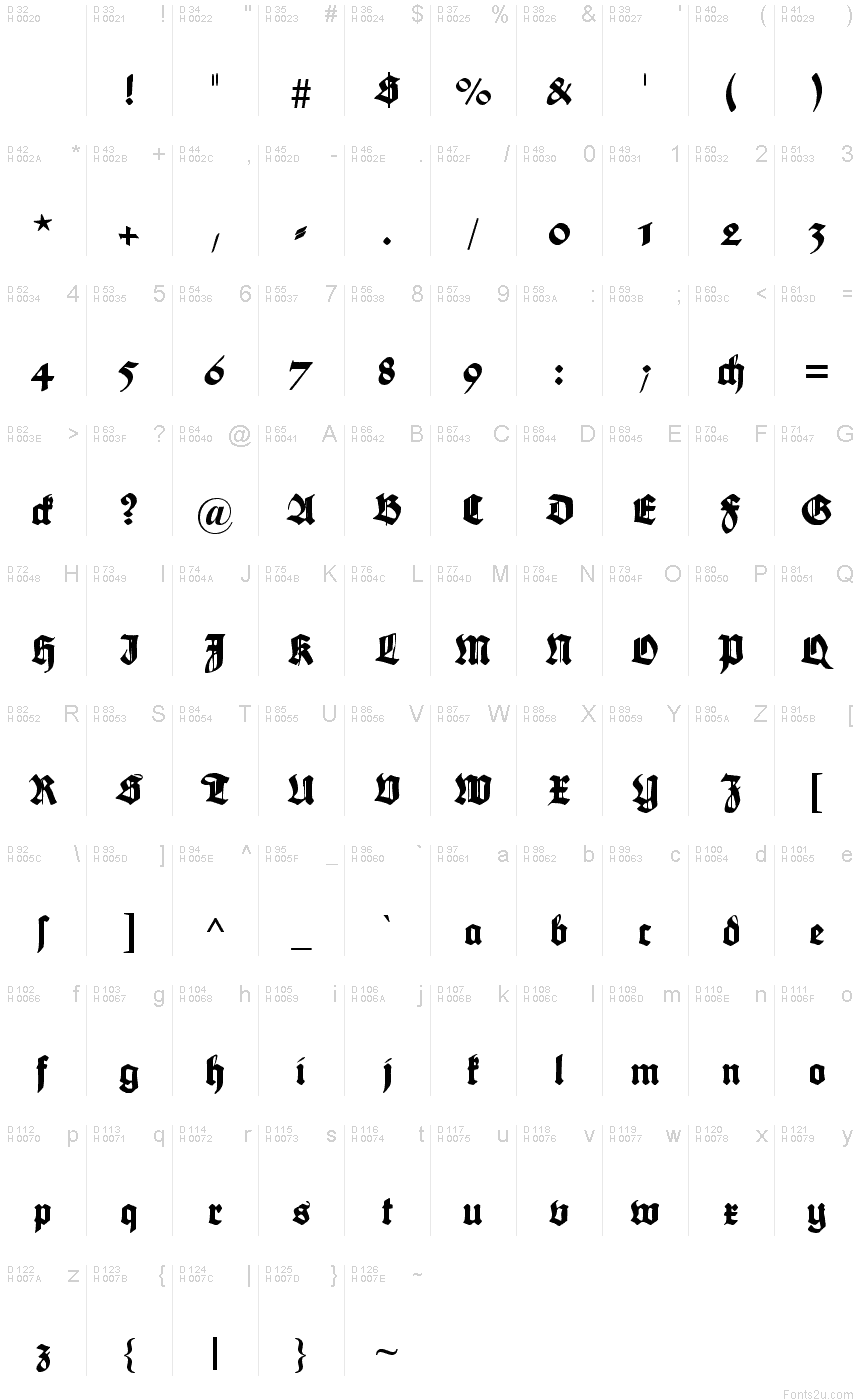
Maximilian
Maximilian, Rudolf Koch's free medieval gothic font, turns dense blackletter rhythm into something crisp and ceremonial rather than rough. Its repeated pointed breaks, tapering spikes, and tightly packed vertical movement give the lettering a carved, heraldic texture that feels rooted in early German book and title styles.
That character makes sense on pub signs, historical posters, beer labels, album titles, and Renaissance fair graphics where a formal old-world voice is part of the message. Short headings and monograms especially benefit from the compact dark texture, which creates a strong banner-like presence without needing extra ornament.